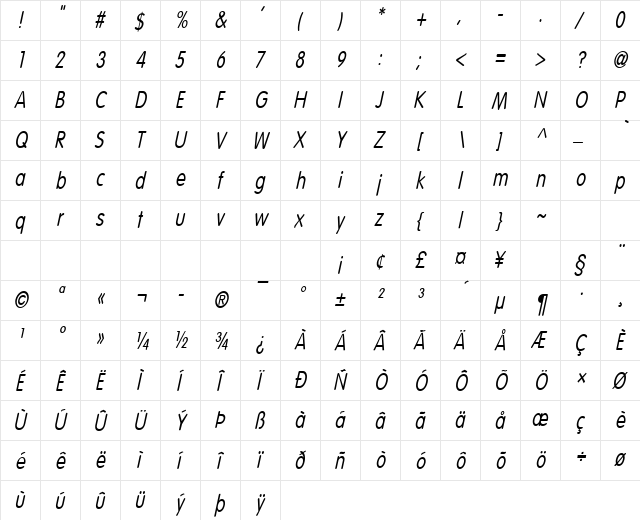
Vogel-Condensed Italic Font Preview
Design Context for Vogel-Condensed Typeface
Vogel-Condensed offers clean, dependable letterforms without strong stylistic allegiance, making it a practical choice for designers who need flexibility. Its italic angle brings a sense of urgency and motion to the letterforms. The condensed width makes it efficient for tight spaces without sacrificing legibility.
Pro Tip: Try Vogel-Condensed for annotation and caption copy alongside an upright companion — the contrast in angle creates a dynamic but ordered typographic system.